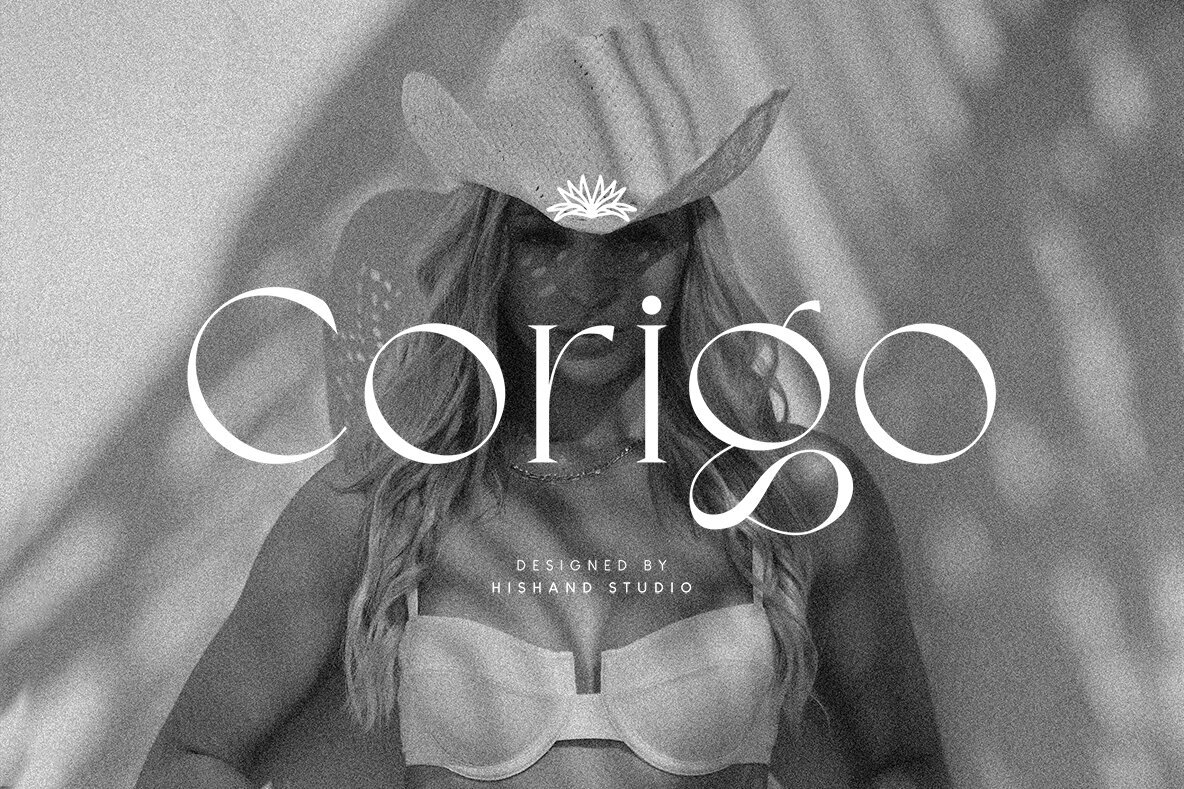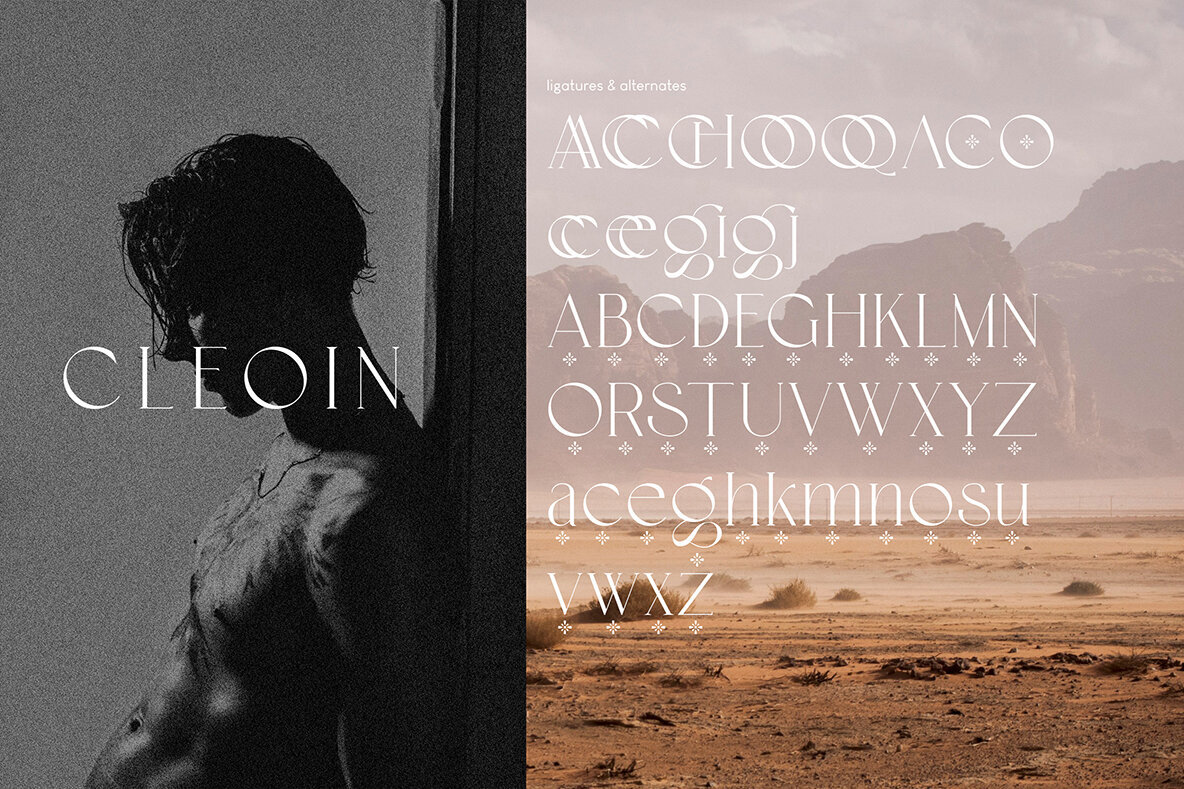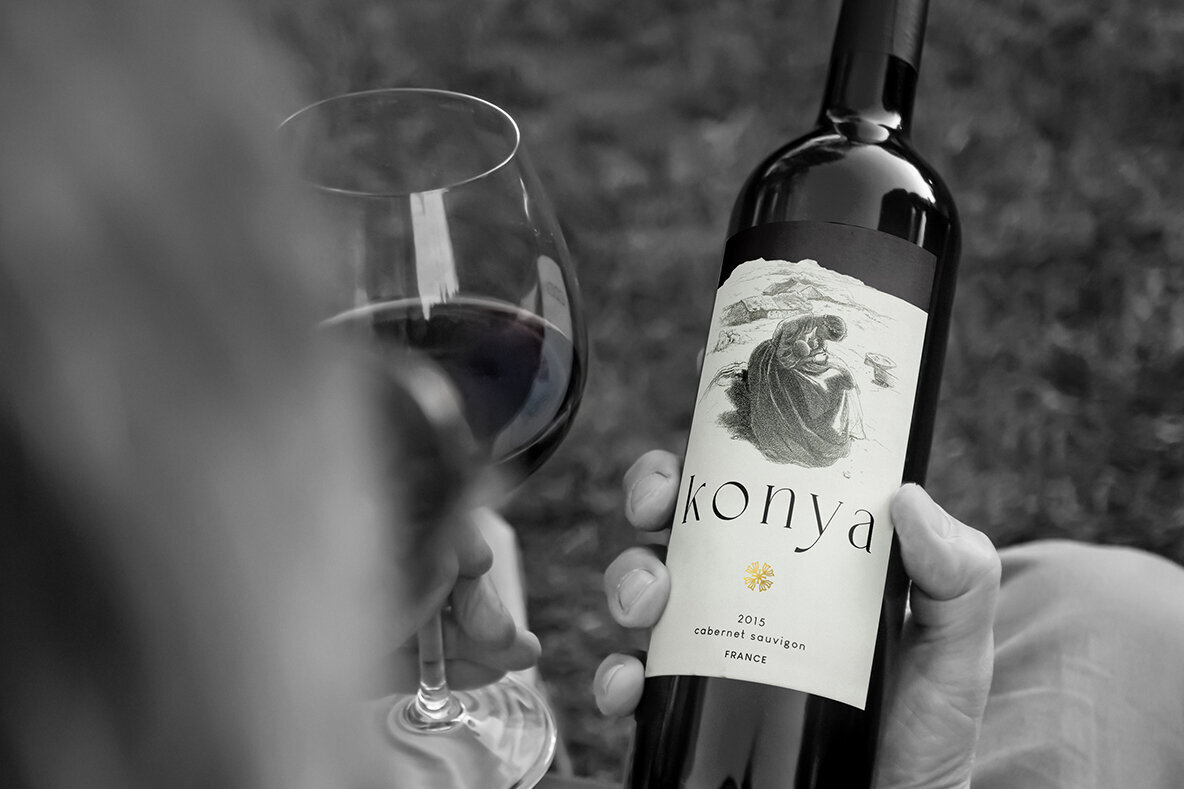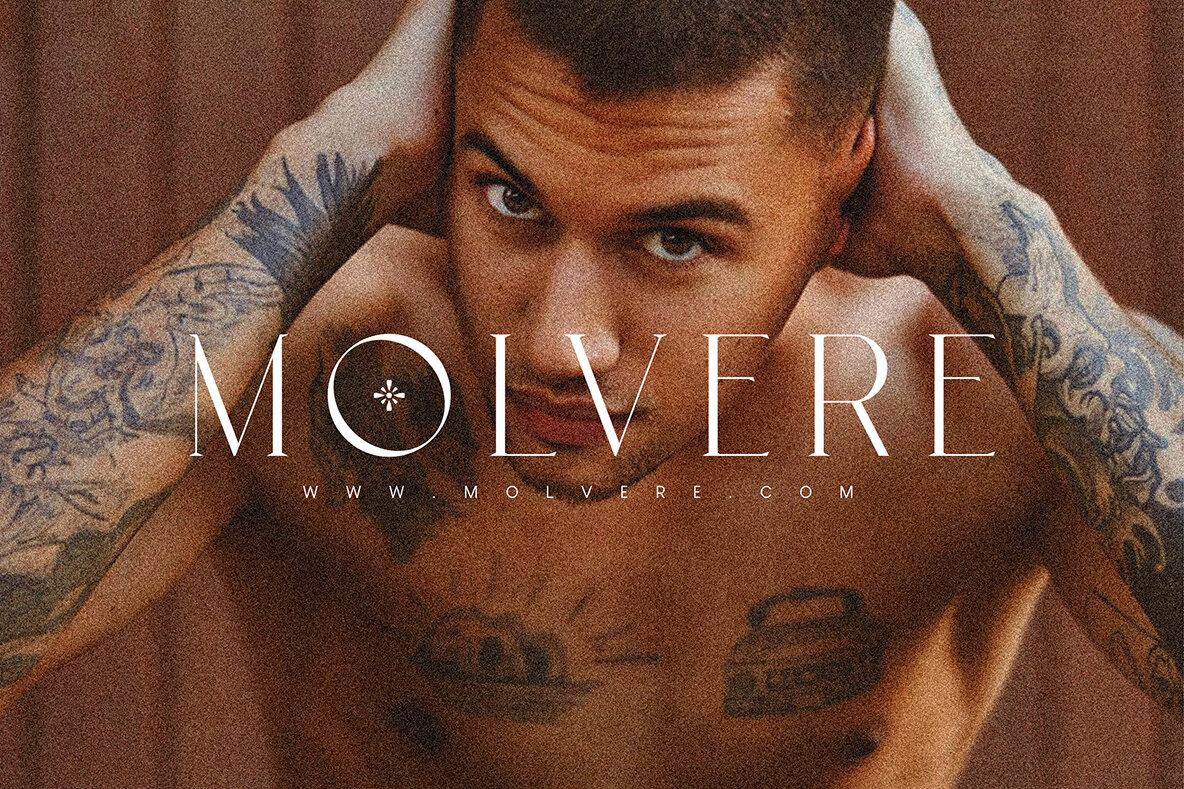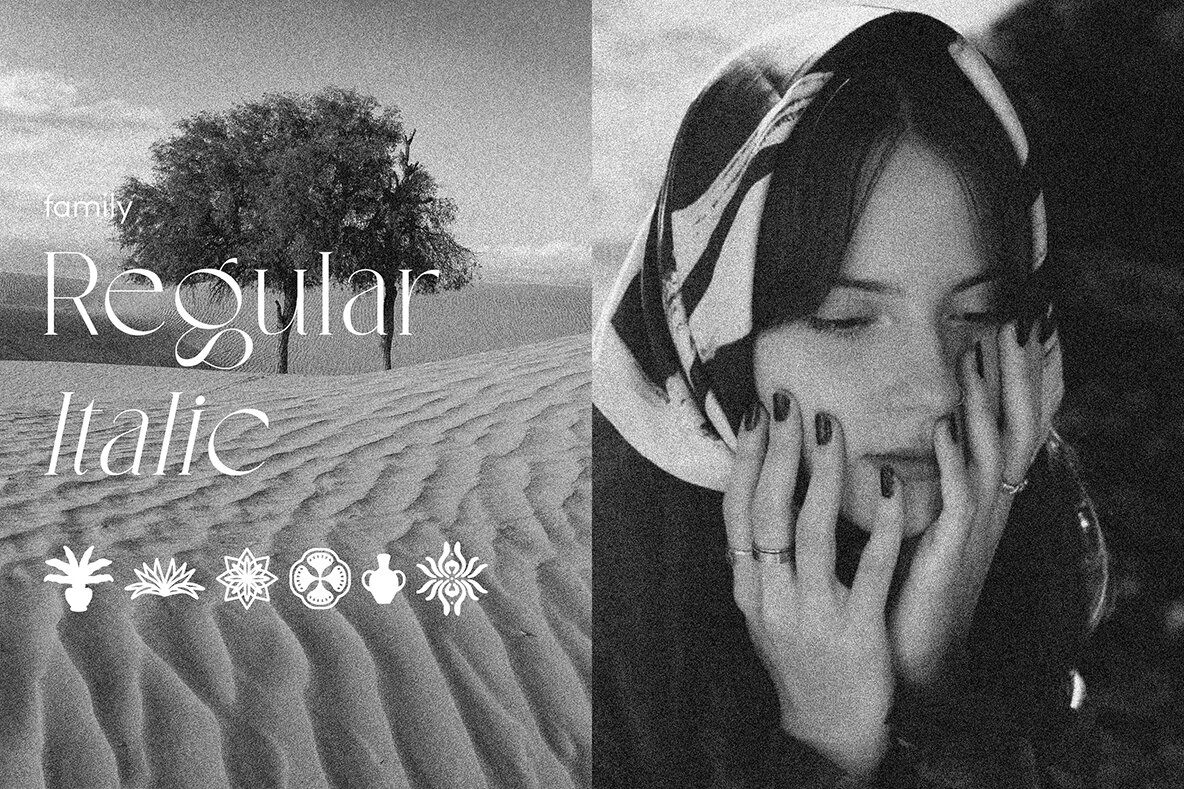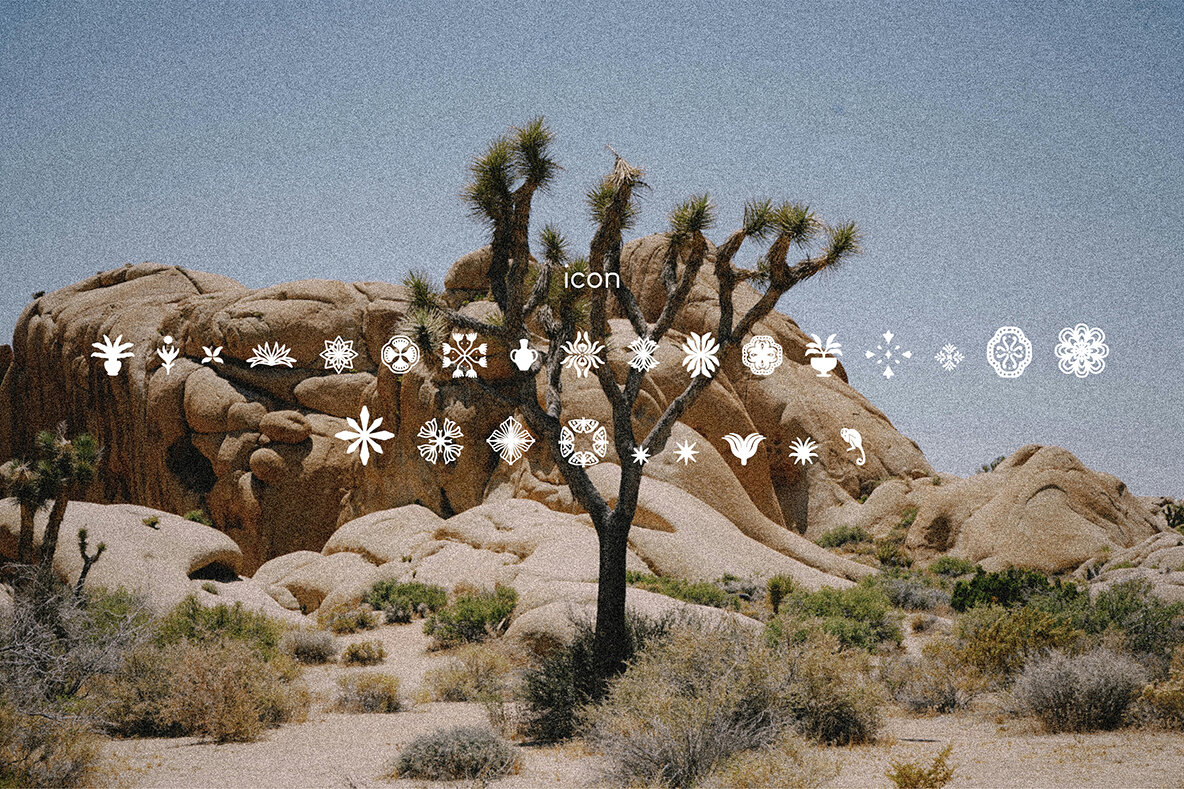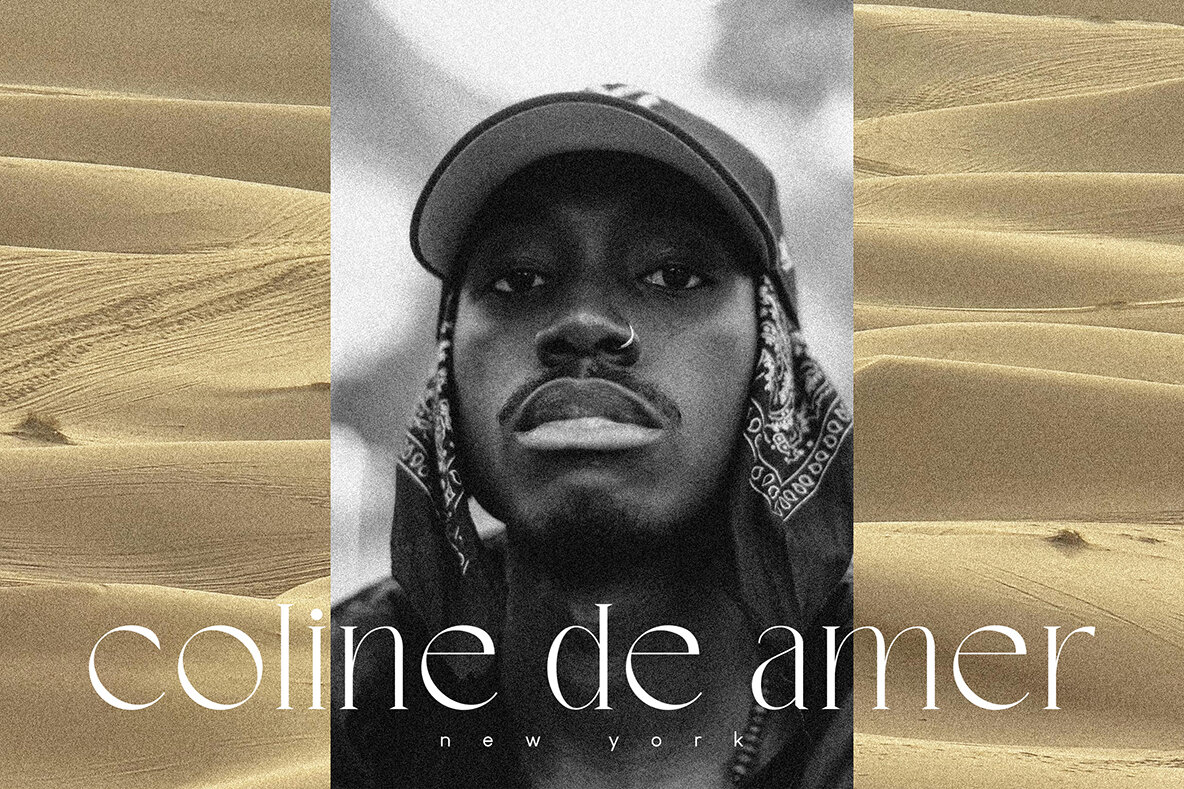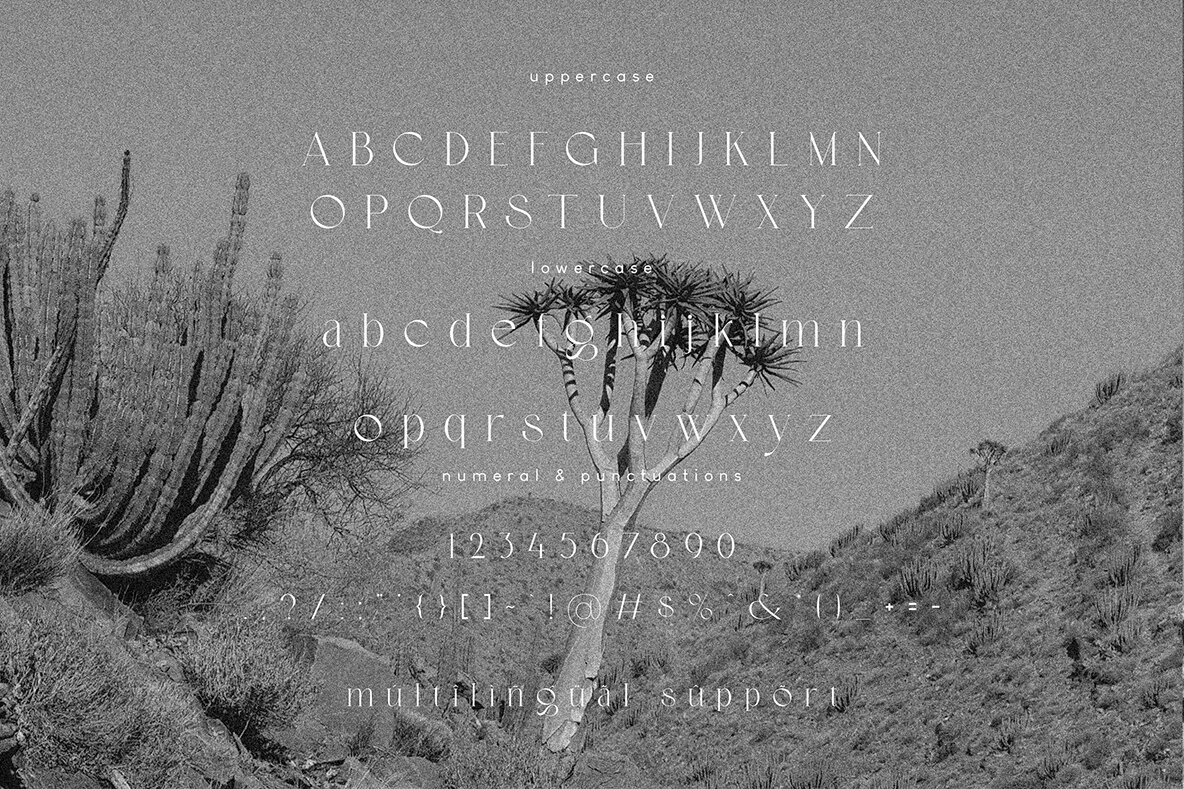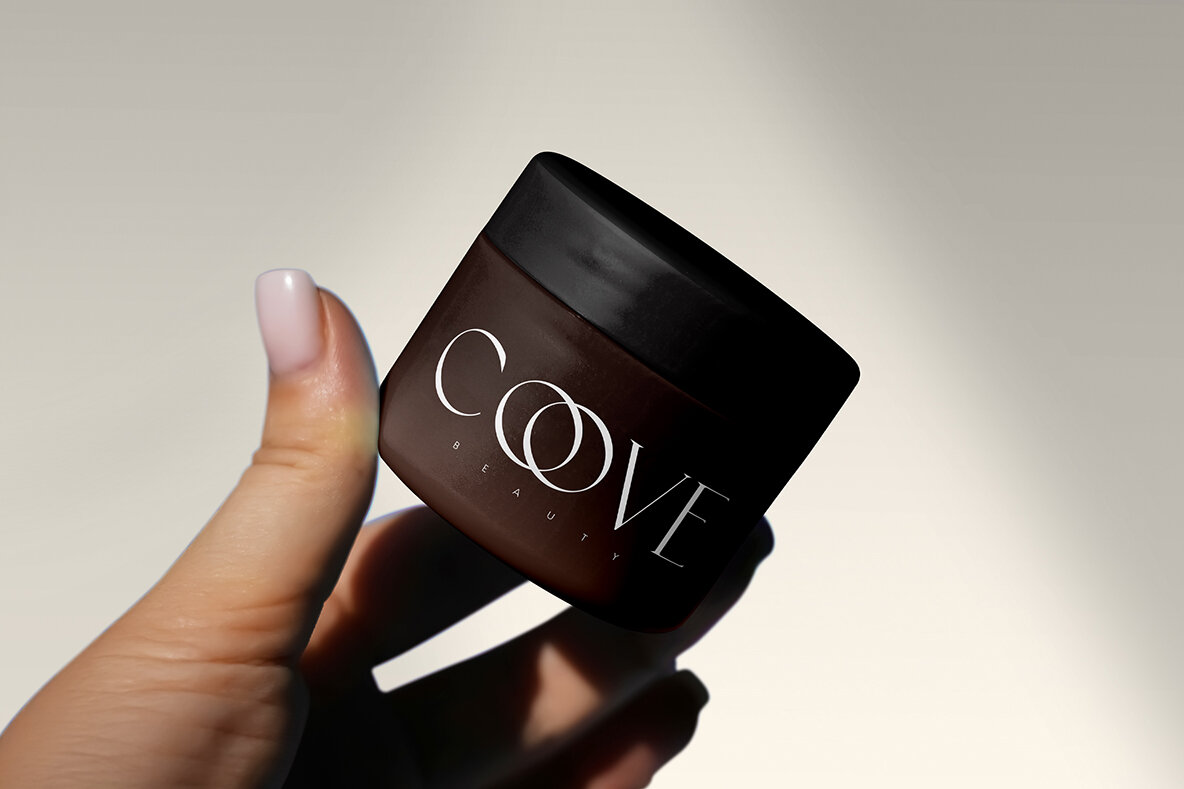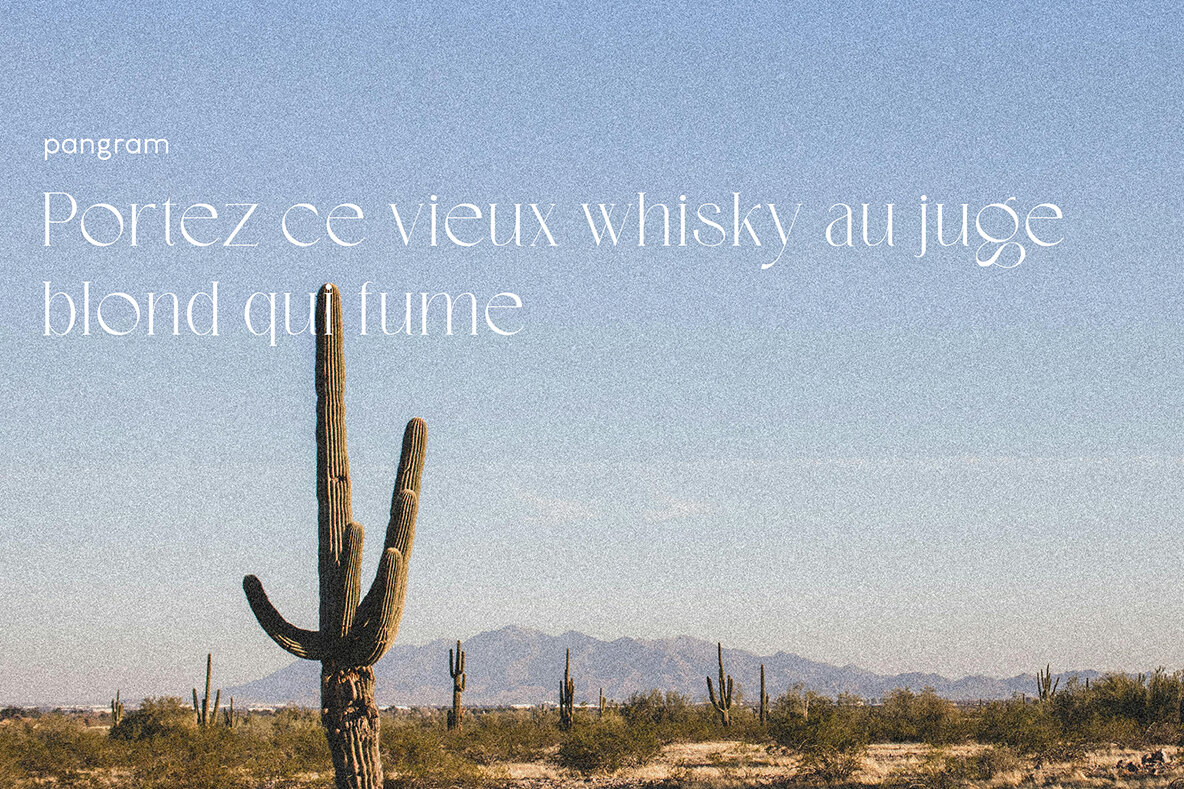
Corigo Font
Corigo Regular
Corigo Italic
Corigo Icon
Corigo is a sophisticated serif font designed to infuse your projects with elegance and style. Featuring balanced proportions and refined strokes, Corigo seamlessly blends a modern aesthetic with classic charm. Each letterform is meticulously crafted to ensure both harmony and readability, making it a great choice for various creative endeavors. Whether you're working on branding, editorials, invitations, packaging, or luxury logos, Corigo enhances your design with a graceful touch. Its sleek details and timeless appeal serve as the perfect foundation for conveying class, beauty, and professionalism. Suitable for headlines, body text, and stylish compositions, Corigo ensures your message is delivered with clarity and sophistication.Corigo: The Quintessence of Elegance in Typeface